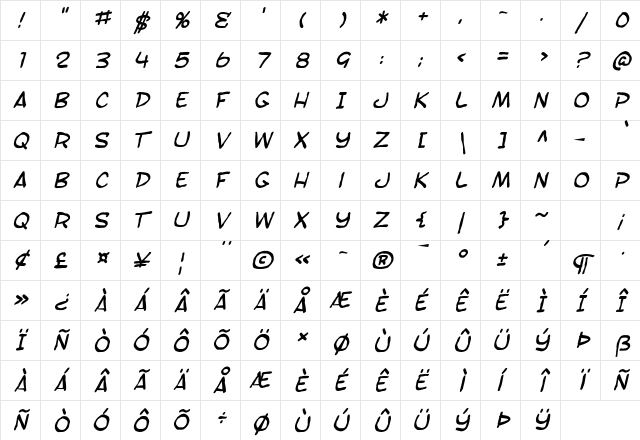
SF Toontime Blotch Italic
Designer: ShyFonts Type Foundry
Design Context for SF Toontime Blotch
SF Toontime Blotch is a composed and adaptable typeface that performs quietly and consistently across a wide range of design contexts. The slanted form adds forward momentum and visual energy.
Pro Tip: Use SF Toontime Blotch for emphasis, pull quotes, and subheadings where its slanted energy can add rhythm to the layout.